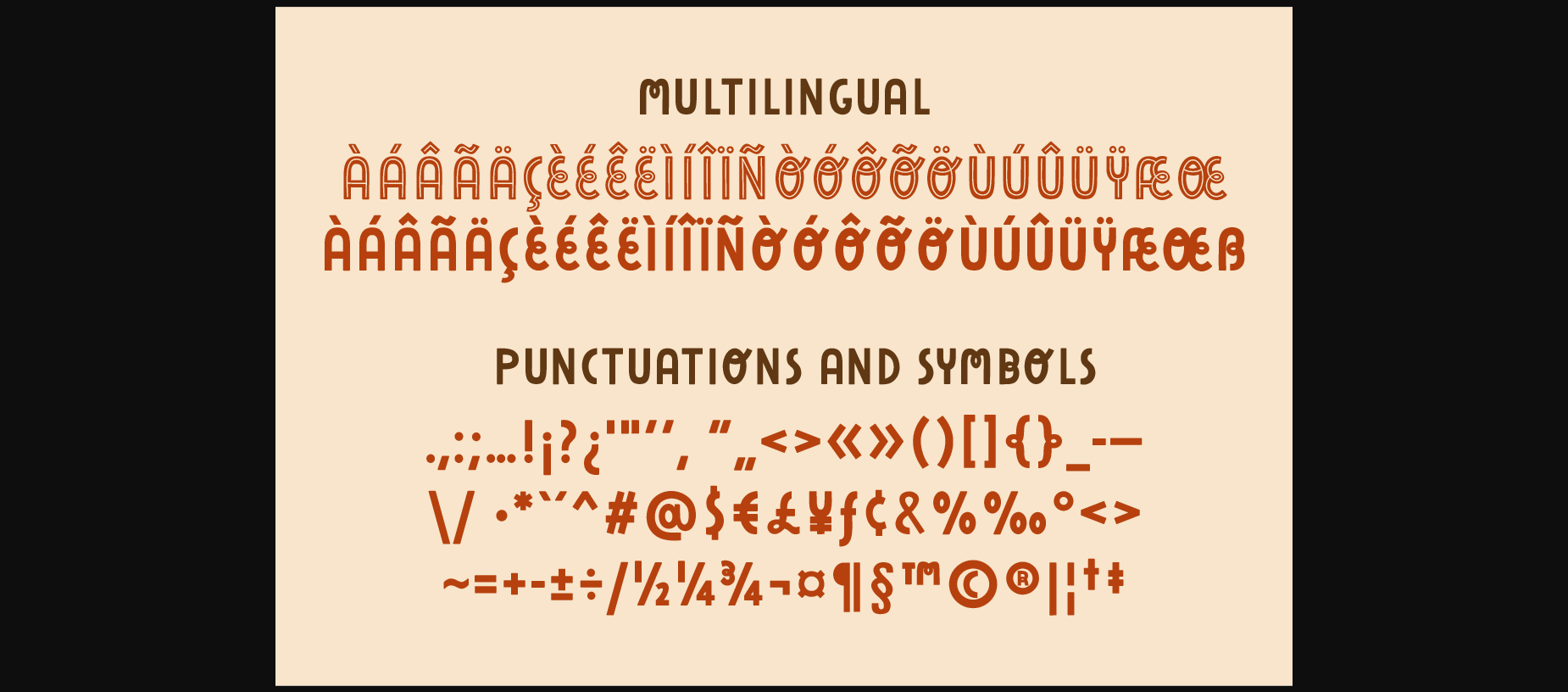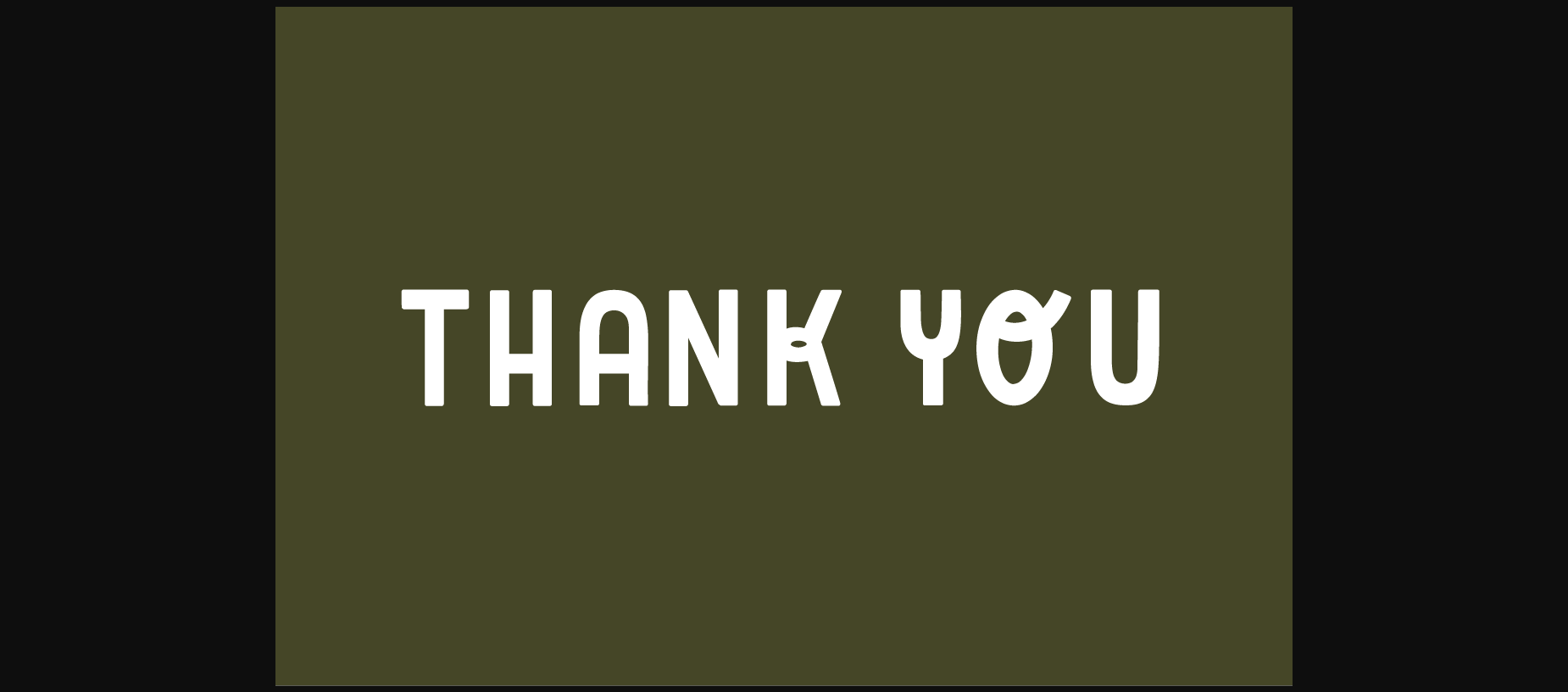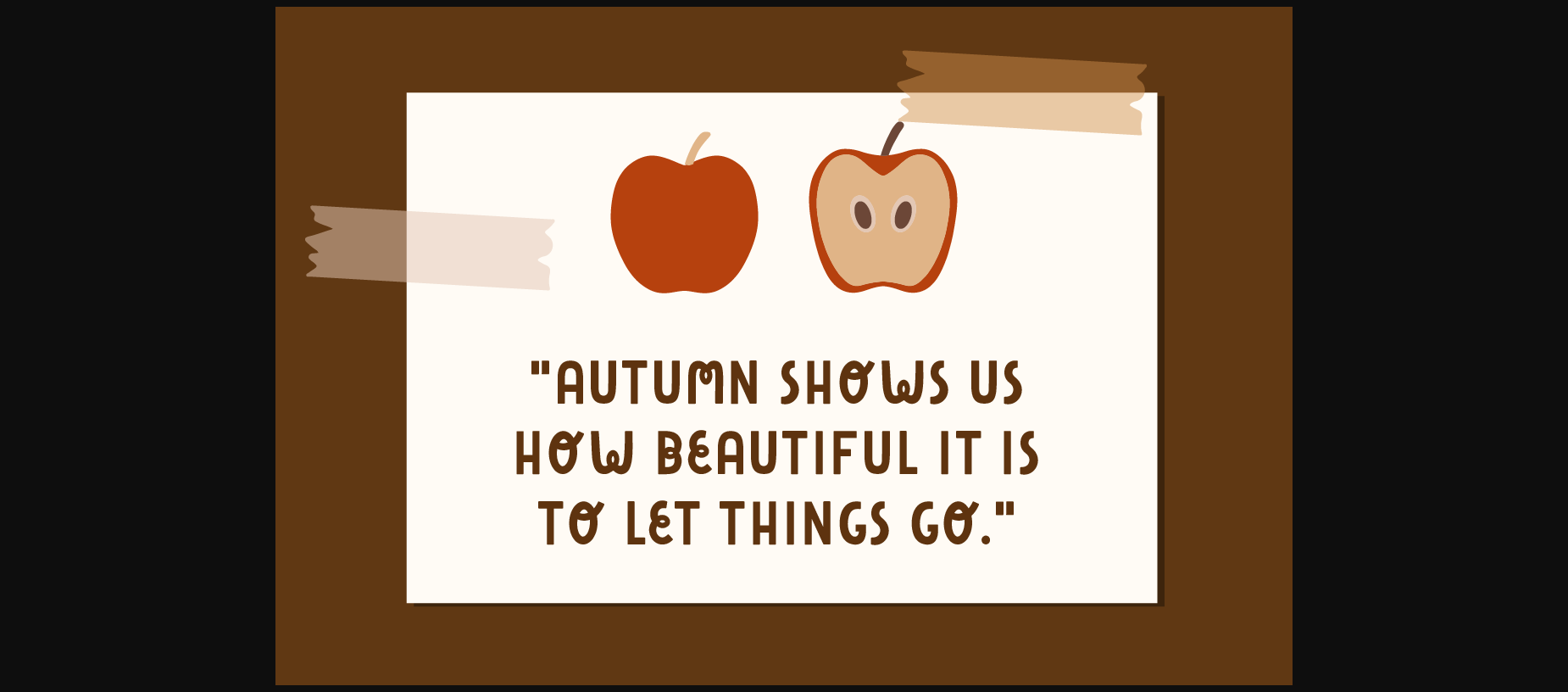
About Hello Autumn Font
Hello Autumn is a cute and playful sans serif font. It is perfect for circuit projects, shirts, retro designs, invitations, mugs, stickers, playful quotes, creating posters, logos, greeting cards, packaging and so much more!